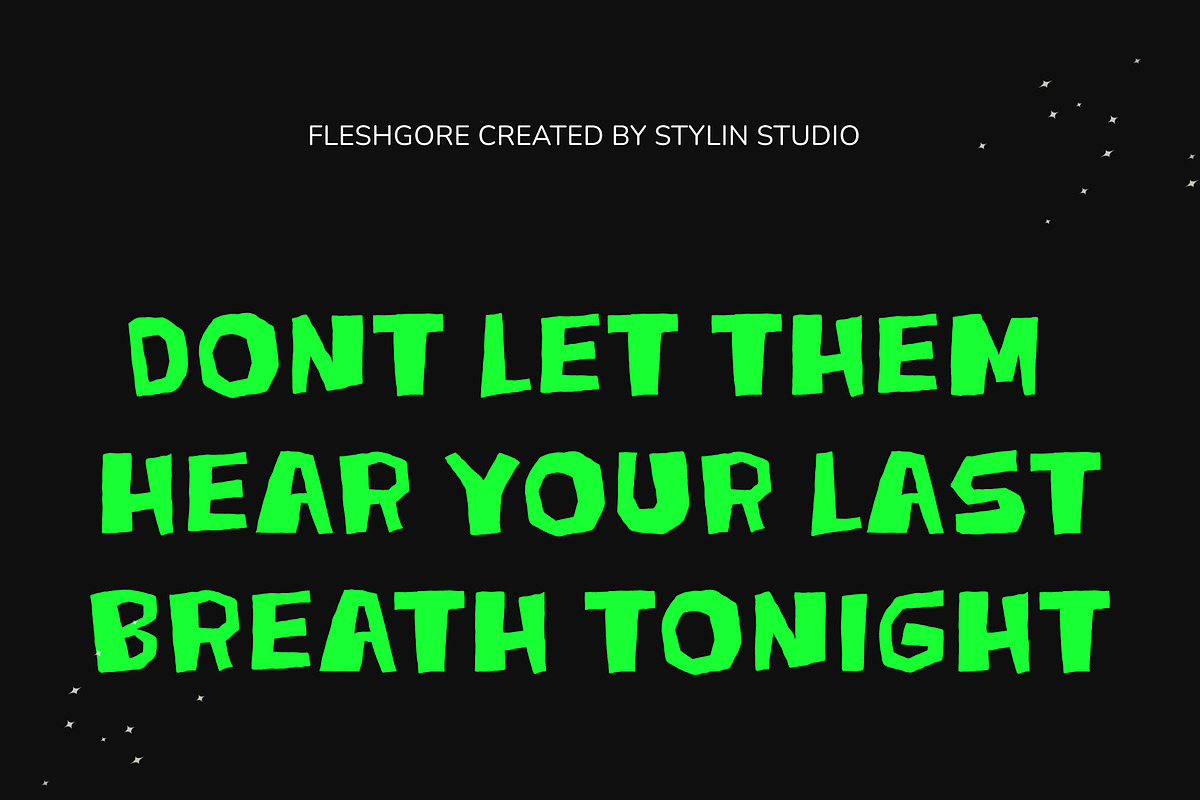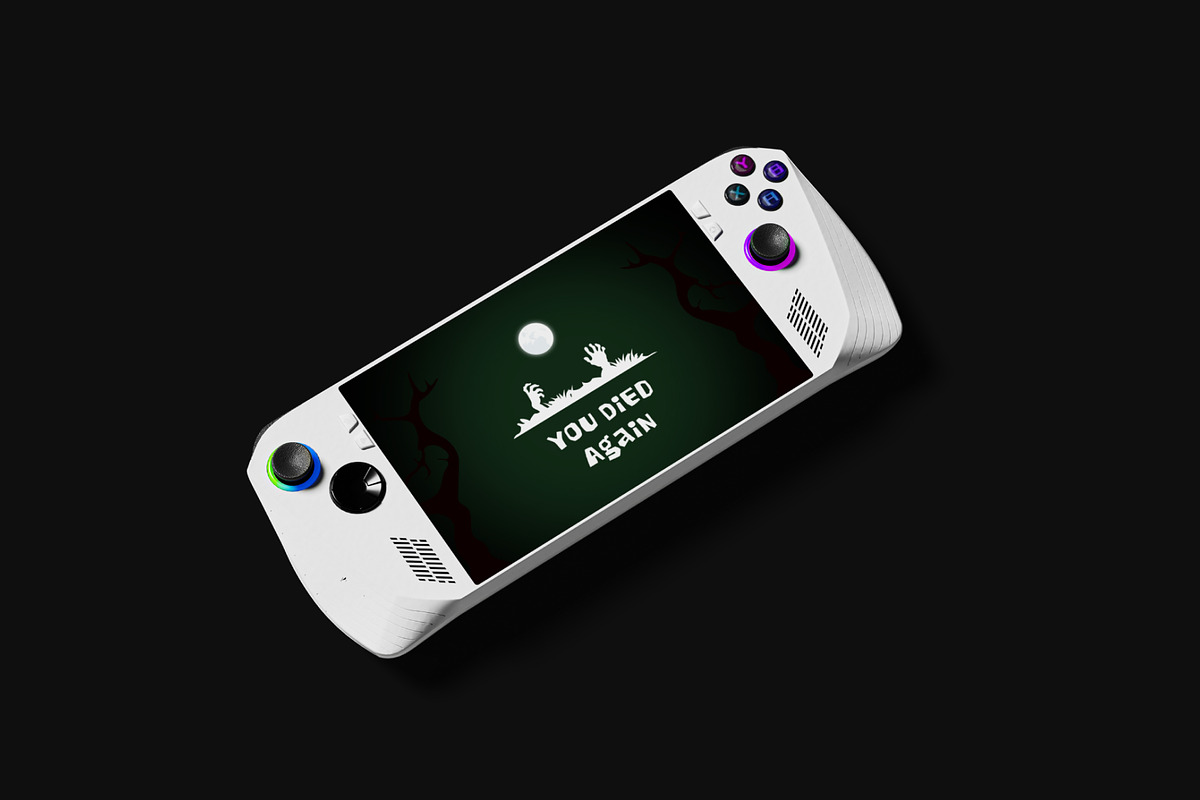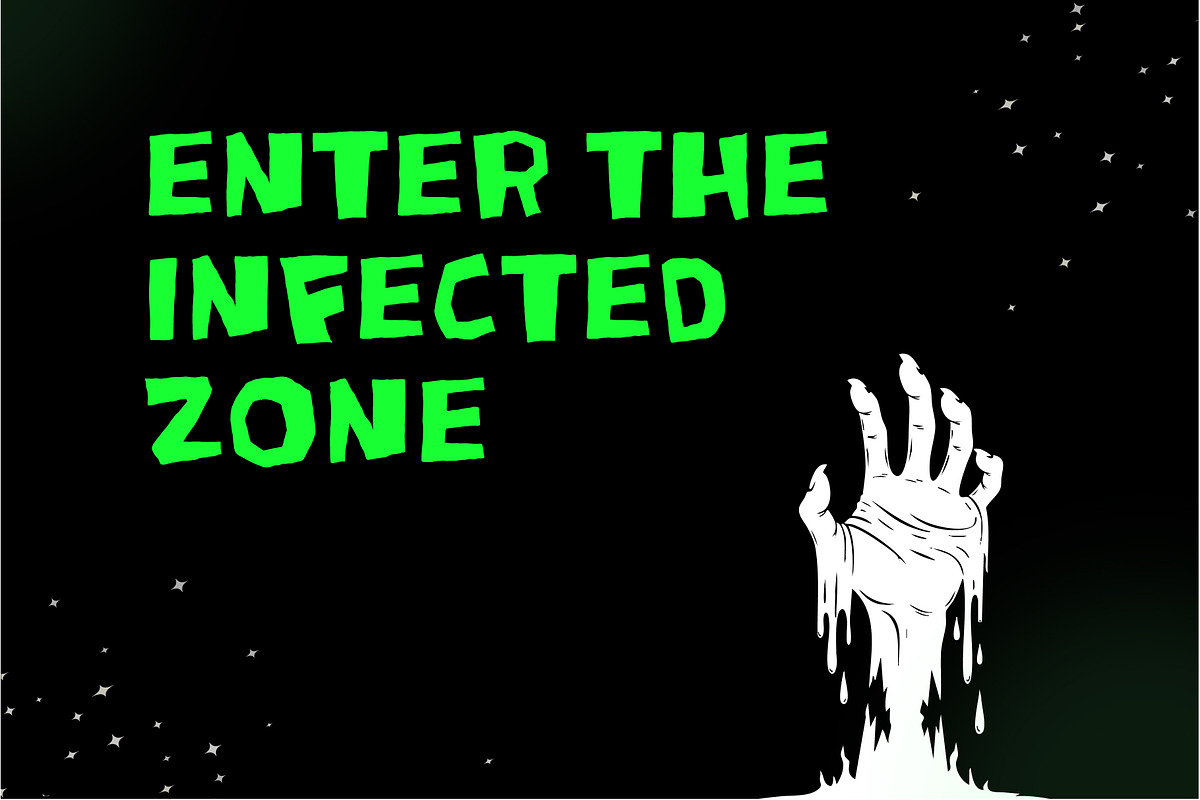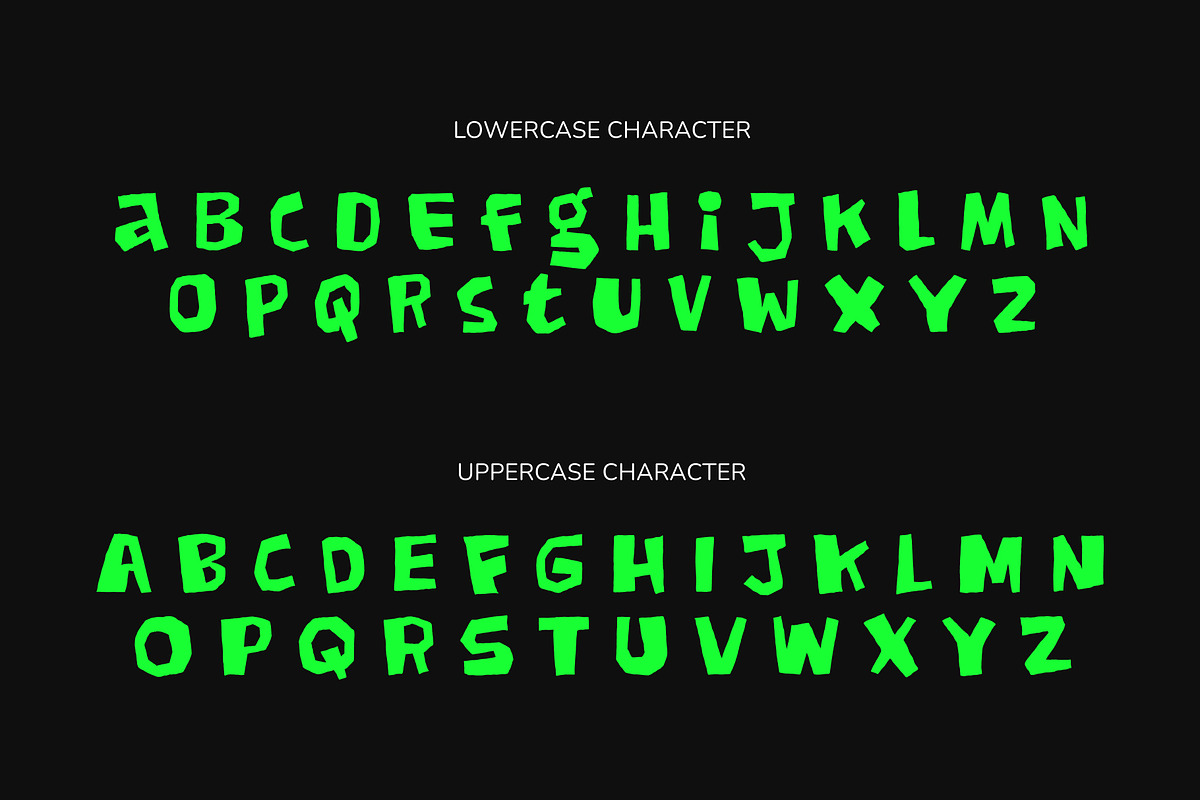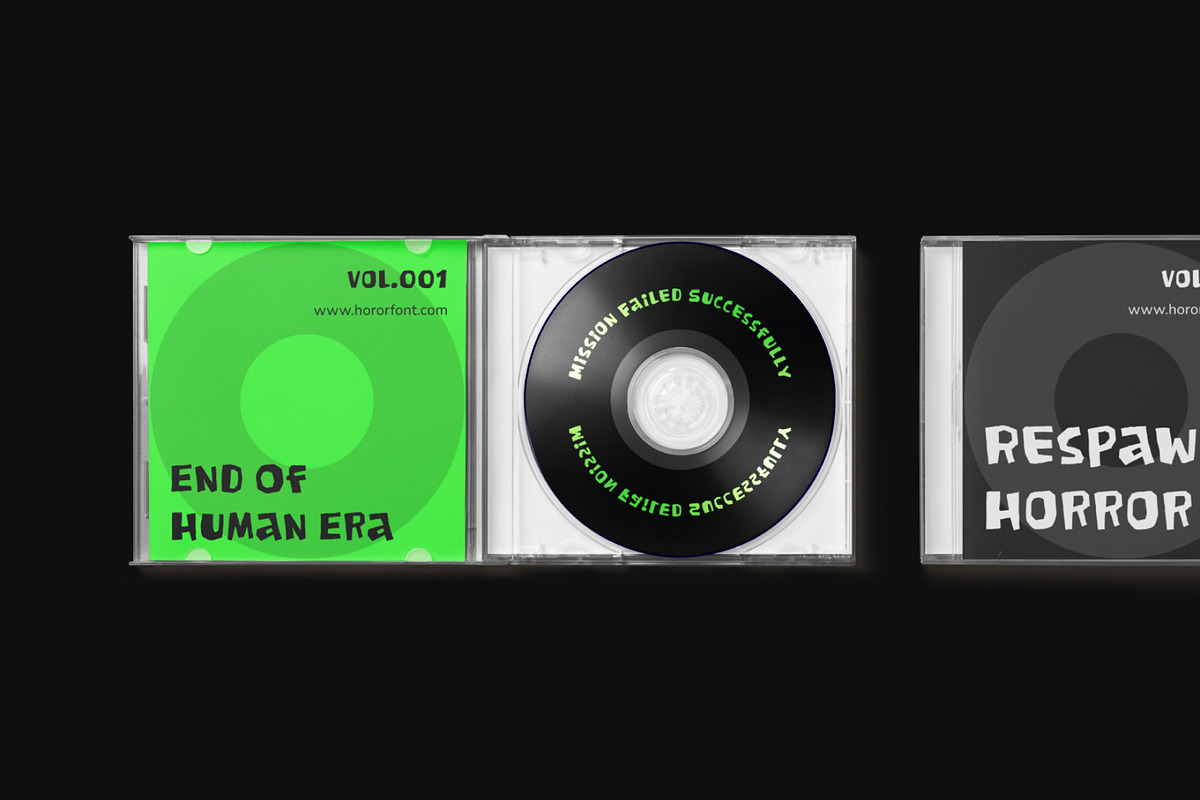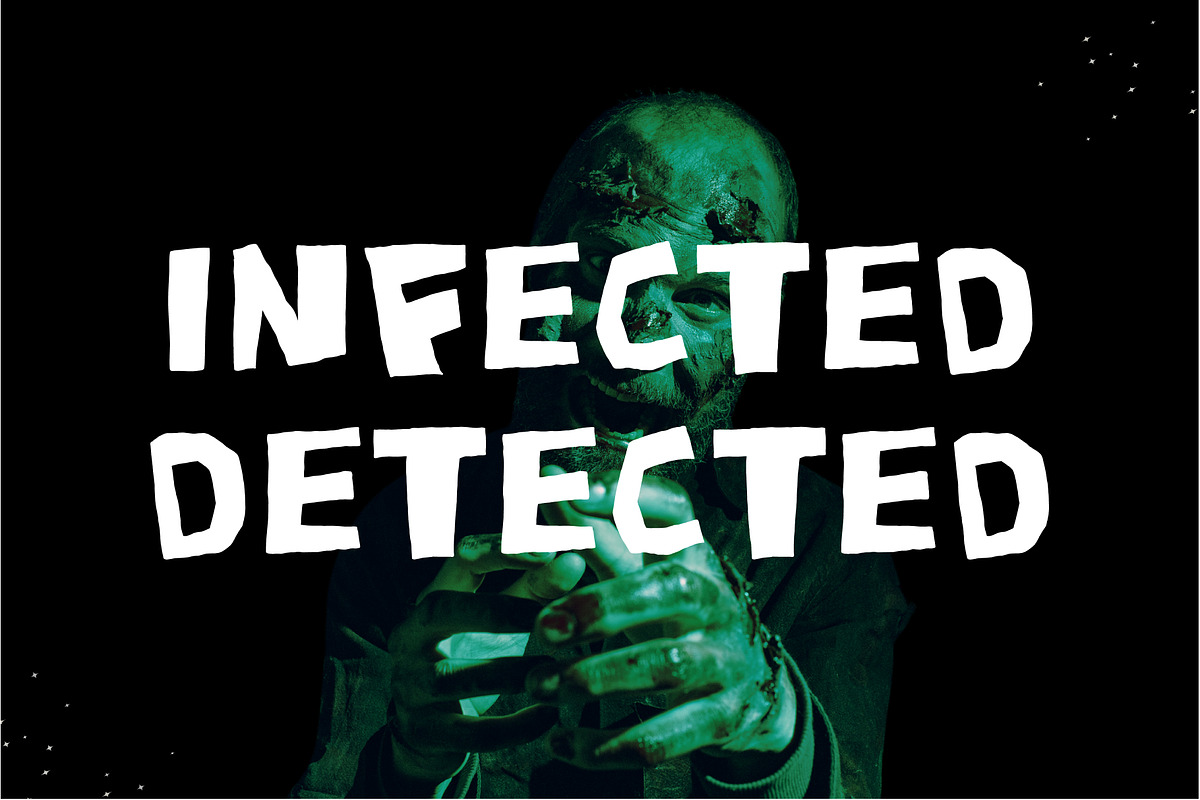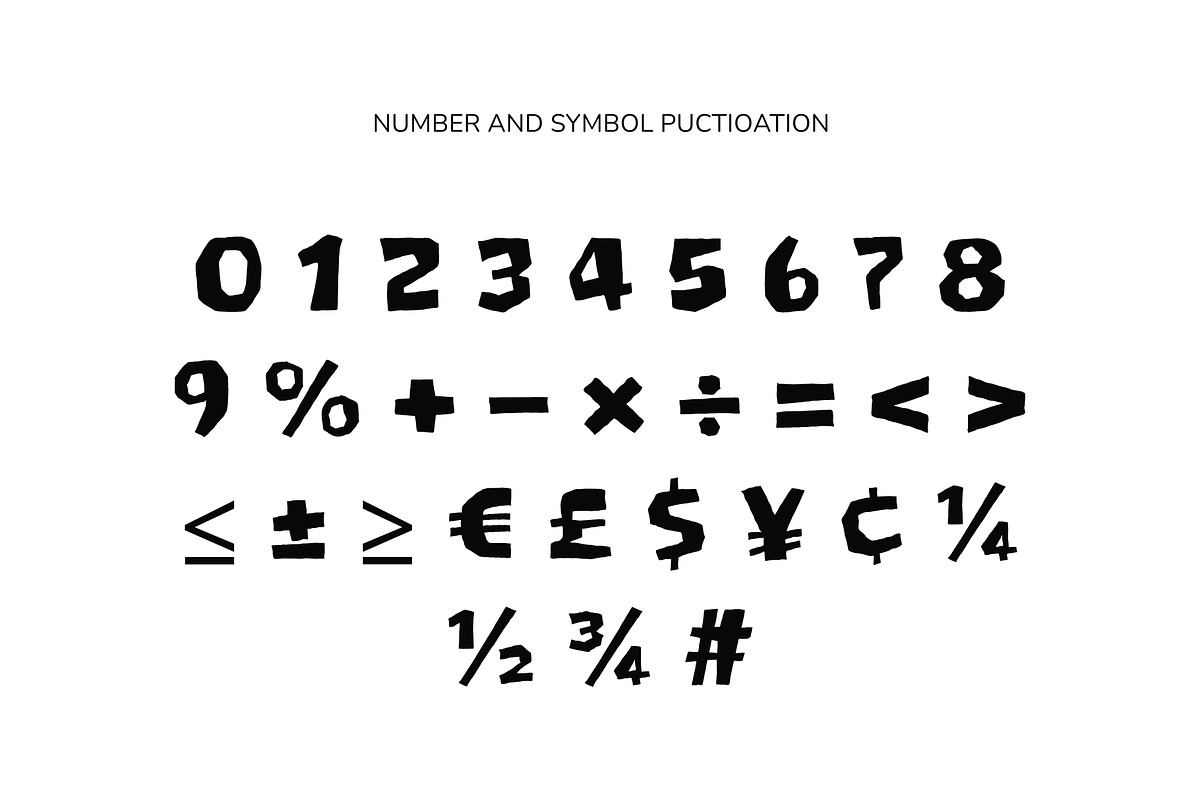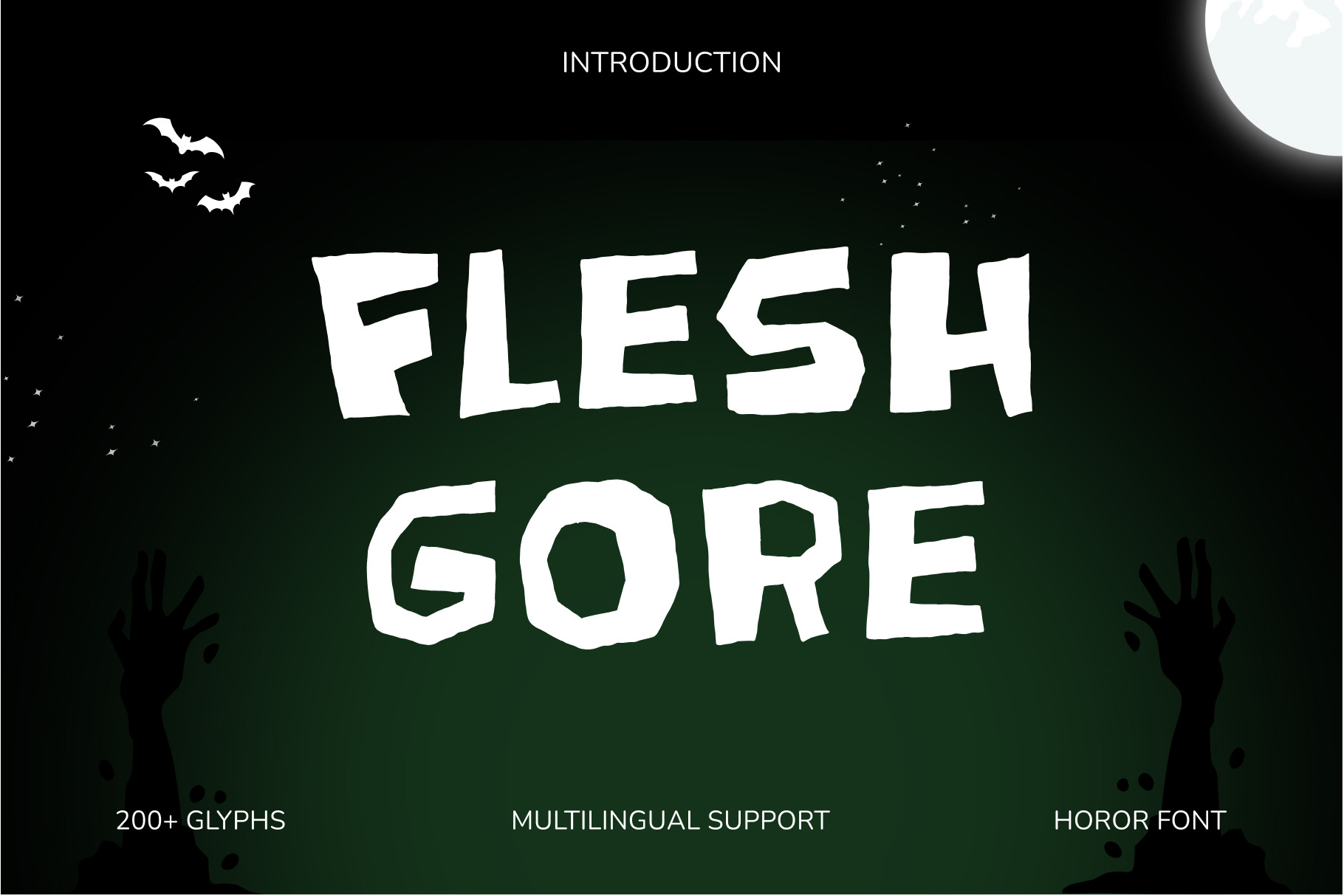
Horror Gaming – Fleshgore Font
Horror Gaming – Fleshgore Font is a bold display typeface designed to capture the intense atmosphere of horror games and dark digital worlds. Featuring sharp edges, aggressive forms, and a haunting visual presence, Fleshgore delivers a powerful look that instantly grabs attention. Perfect for projects that demand suspense, mystery, and adrenaline-fueled energy.
Full Character Set: Uppercase, lowercase, numbers, symbols, and punctuation
From horror game titles to spooky event posters, Fleshgore brings a dark and immersive character to every design. Its striking appearance makes it ideal for gaming branding, streaming graphics, YouTube thumbnails, merchandise, movie titles, social media content, and promotional materials that need a thrilling edge.